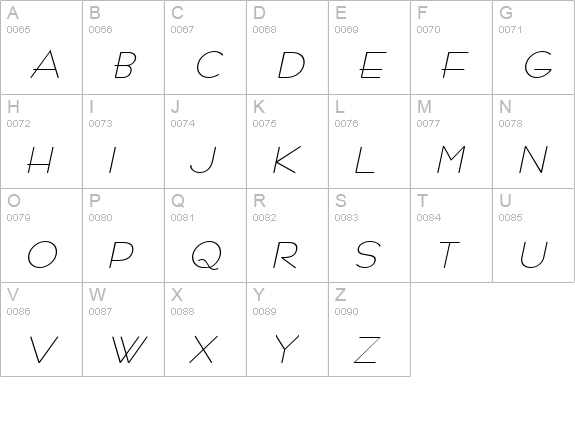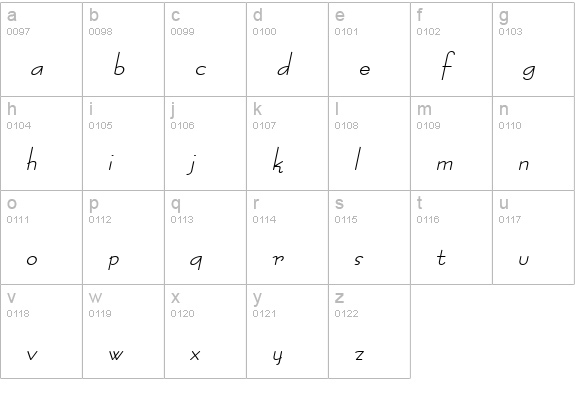
FastracFashion Italic Font Details
FastracFashion Italic is a distinctive, italic variant in the FastracFashion typeface family \xE2\x80\x94 well suited to design and typography projects.
Discover the sleek and modern elegance of FastracFashion Italic font, perfect for adding a touch of sophistication to your designs. With its stylish and dynamic appearance, this font exudes confidence and luxury. The italicized letters add a sense of movement and flair, making your text stand out in a bold and eye-catching way. Best of all, FastracFashion Italic font is available for free download at FontsMarket.com. Whether you're designing a fashion magazine, branding materials, or social media graphics, this font is sure to elevate your projects to the next level. Don't miss out on the opportunity to enhance your designs with this stunning and versatile typeface. Download FastracFashion Italic font today and watch your creations come to life with style and sophistication.